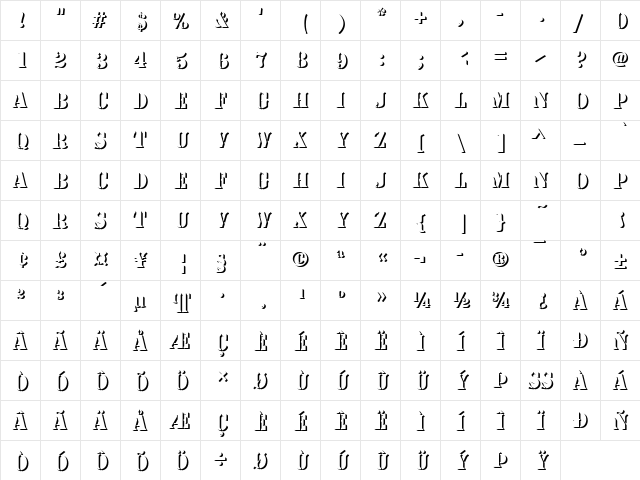
Stencil Becker Only Shadow Regular
Stencil Becker Only Shadow has the rough pragmatism of spray-painted stencil signage, adding a raw, street-level authenticity to designs.
Ideal for industrial branding, streetwear, military-adjacent aesthetics, and urban signage projects.
Pro Tip: Pair Stencil Becker Only Shadow with raw, utilitarian design elements — exposed concrete textures, flat colour, and minimal ornamentation suit it well.